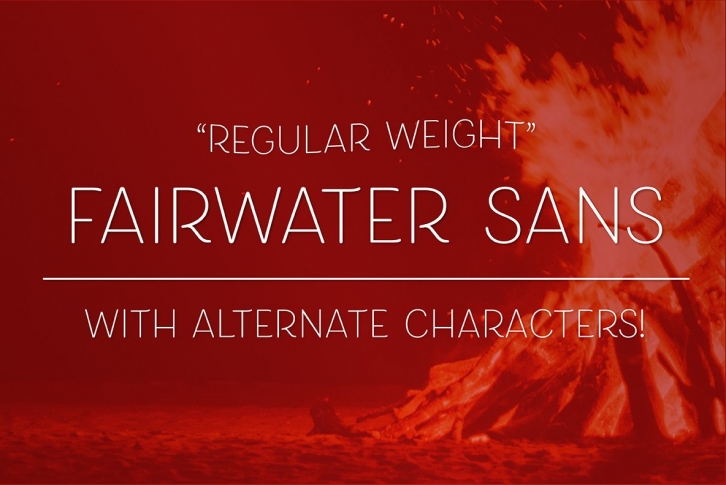
Fairwater Sans is a highly legible friendly, monoline, and casual look – available in light, regular and bold weights. An all caps, slightly narrow style that has been designed to have a stylized appearance that works well on its own, or paired with the other fonts offered in the Fairwater collection.
506 Glyphs and 26 Stylistic Alternates